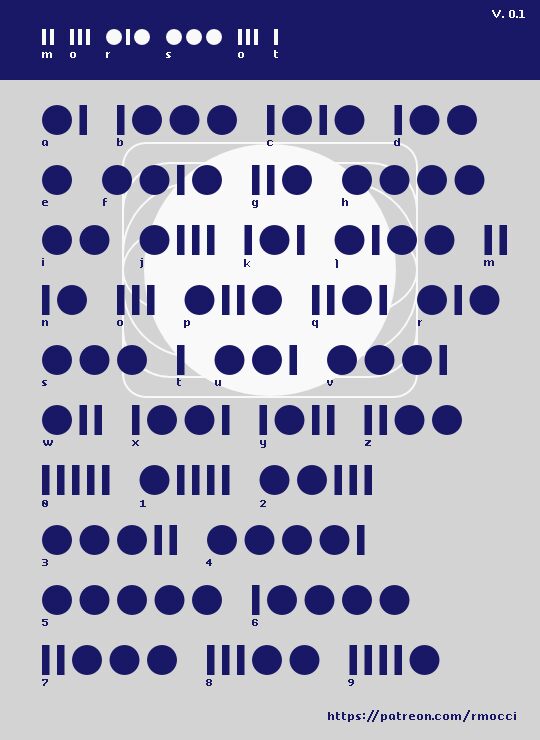
Morsot, a stunning dingbat font by Roberto Mocci, captures the essence of minimalism with its sleek and modern design. This font is versatile and perfect for a range of projects, including logos, posters, packaging designs, and more. The unique icons that make up the font are perfect for adding a touch of creativity to your work. Whether you're aiming for a clean and simple look or something more intricate, Morsot will deliver. With its sharp lines and bold style, this semi-bold typeface is sure to make an impact on any project you choose to use it in.
Morsot is a typeface inspired by the Morse. Use it for any purpose (personal and commercial). Don't forget to donate!